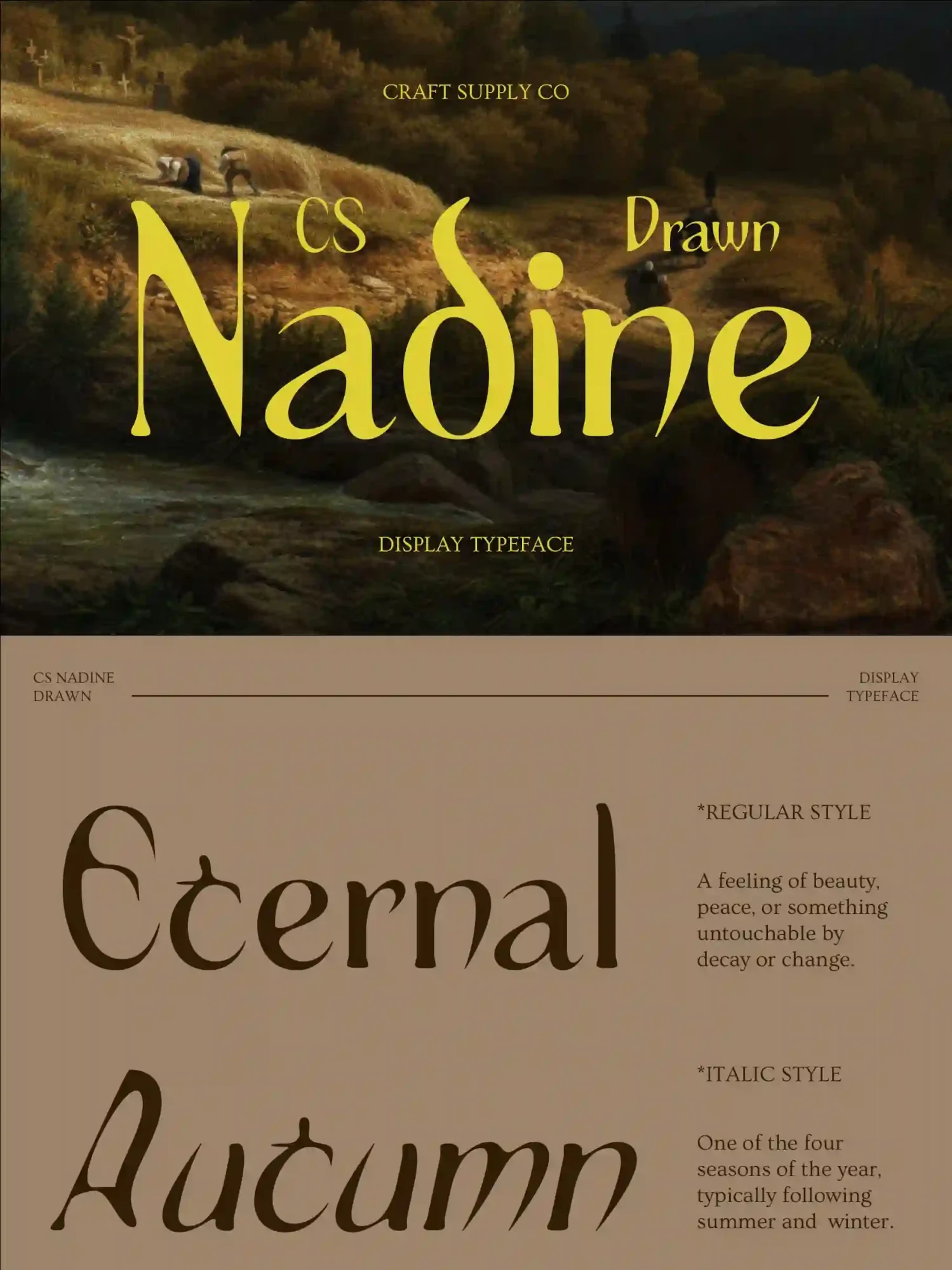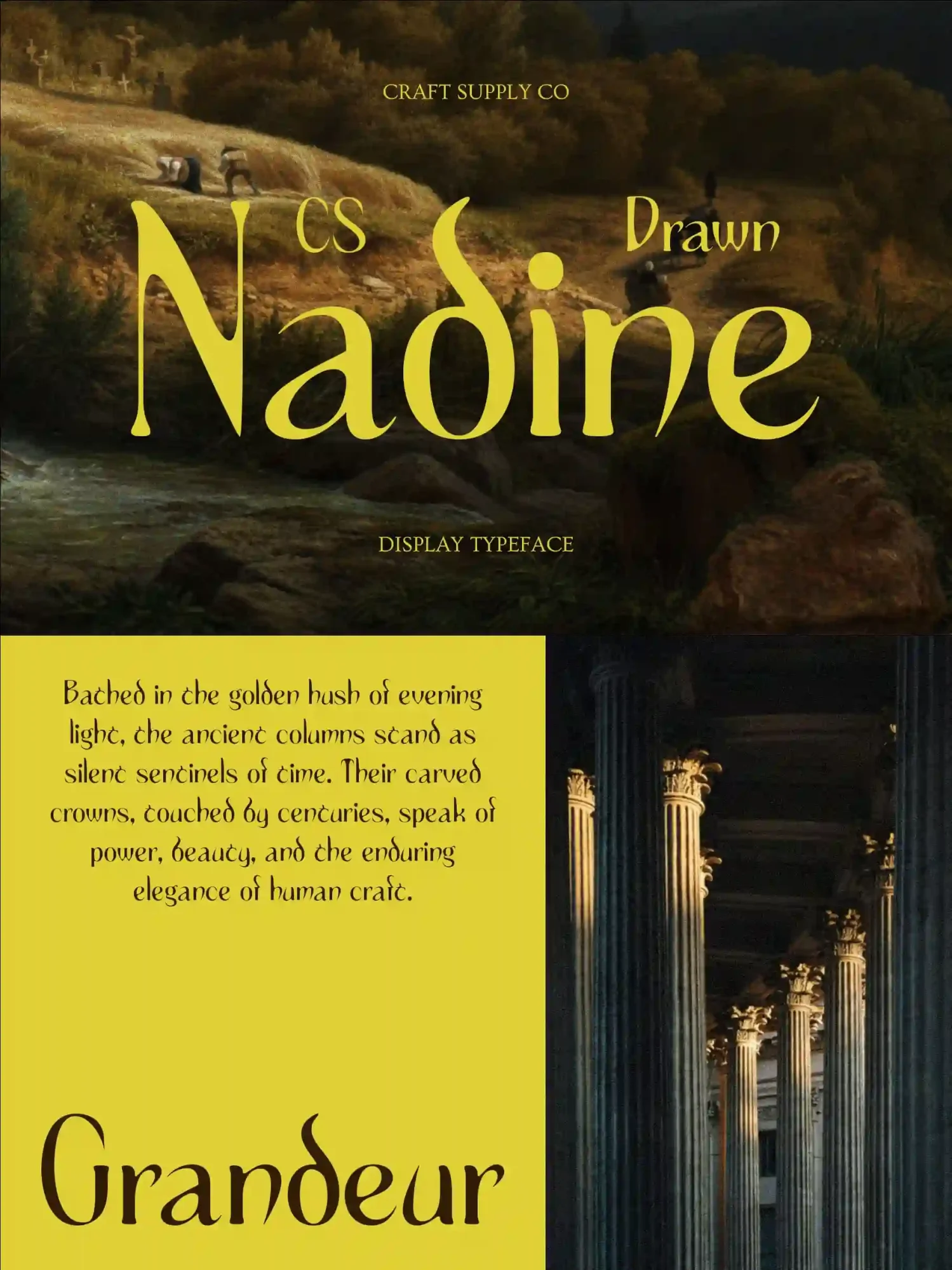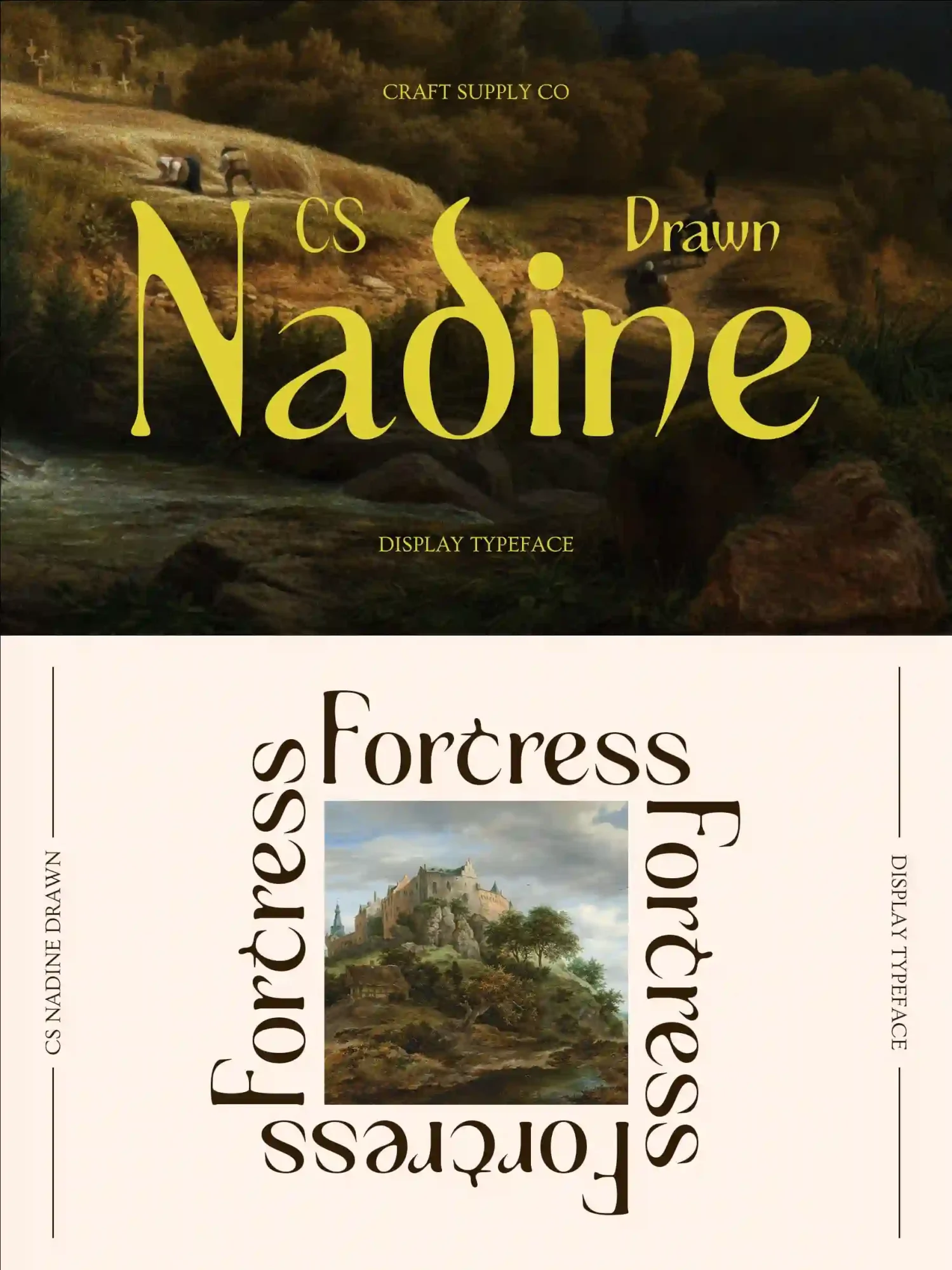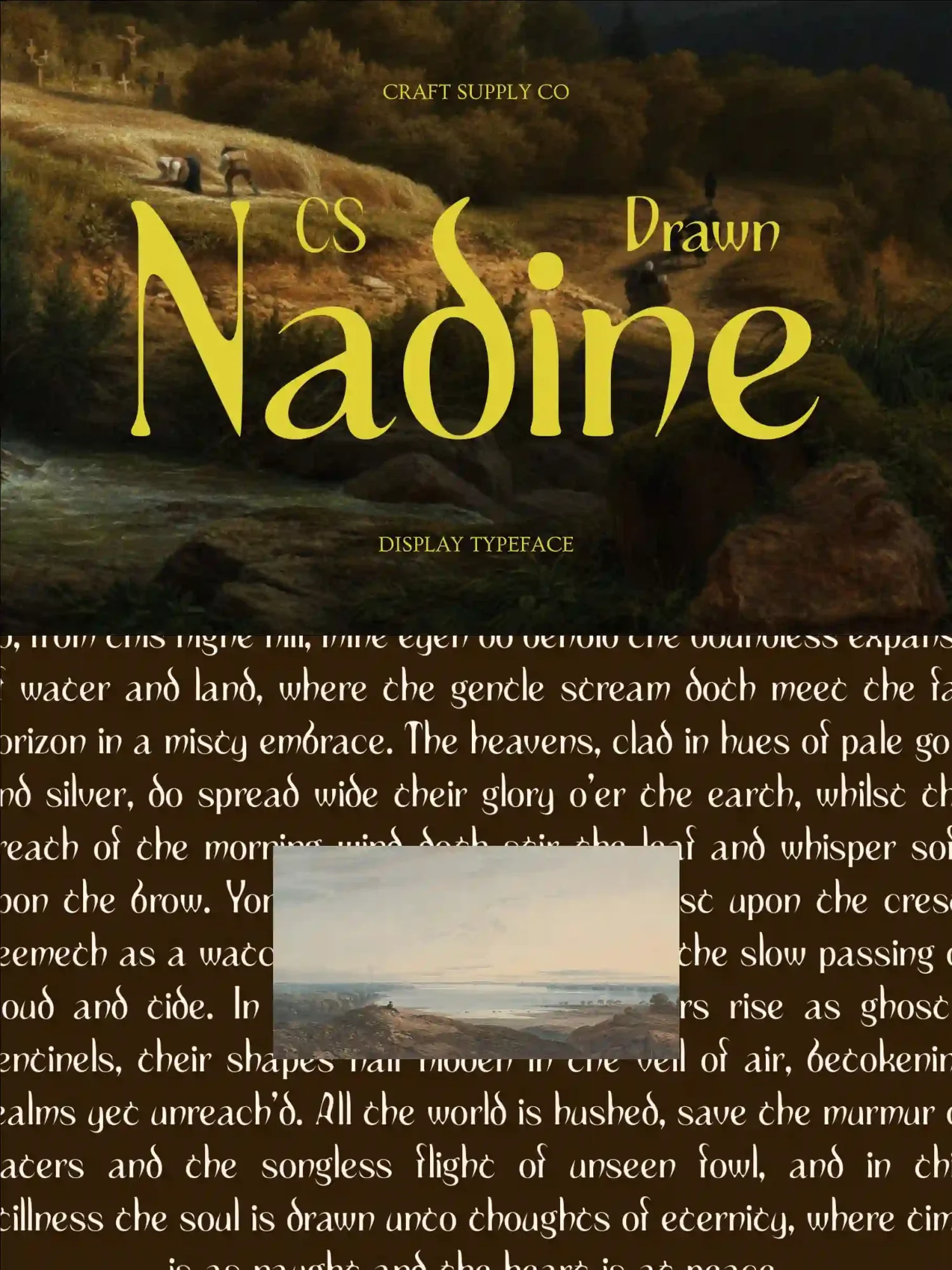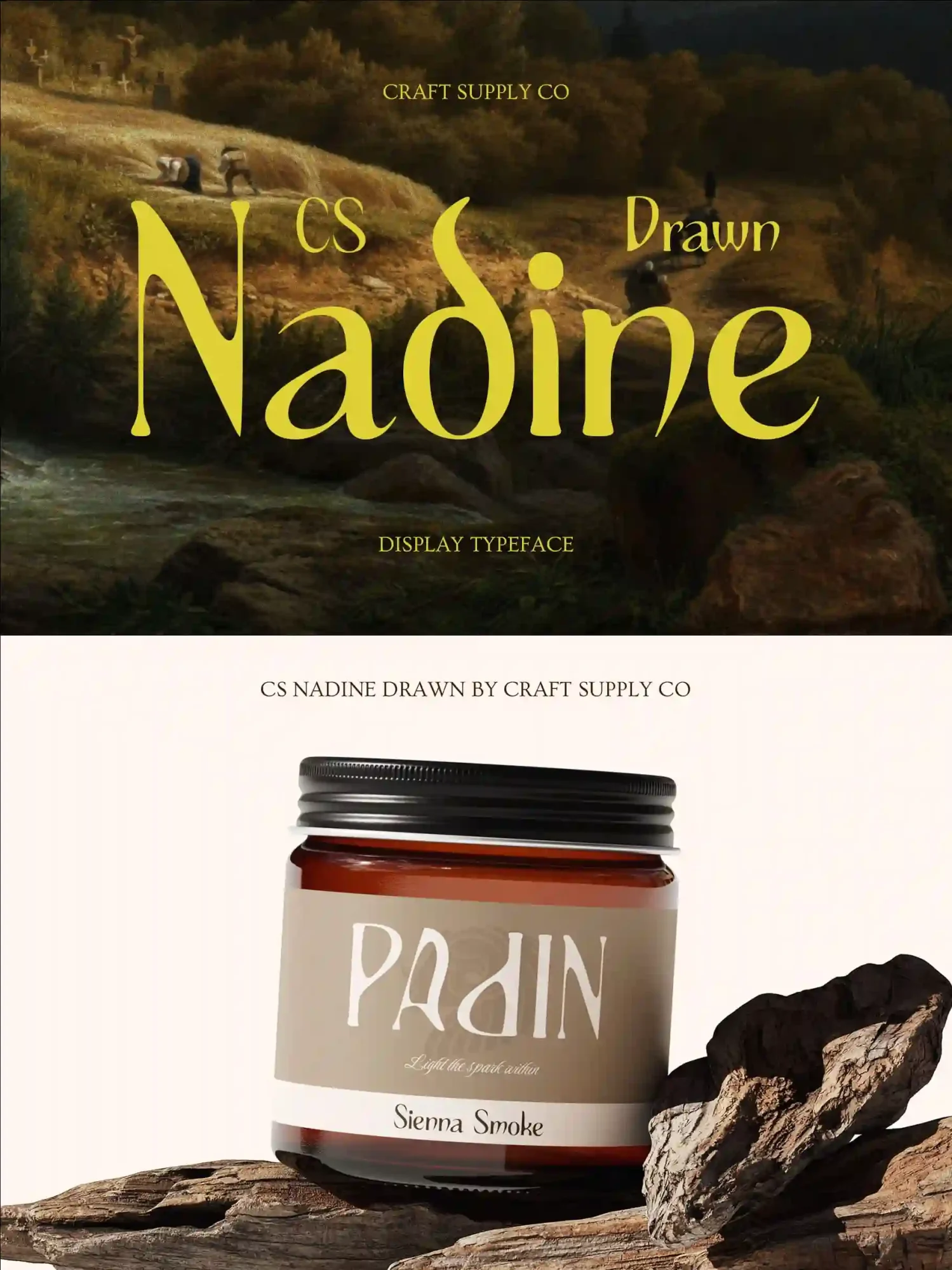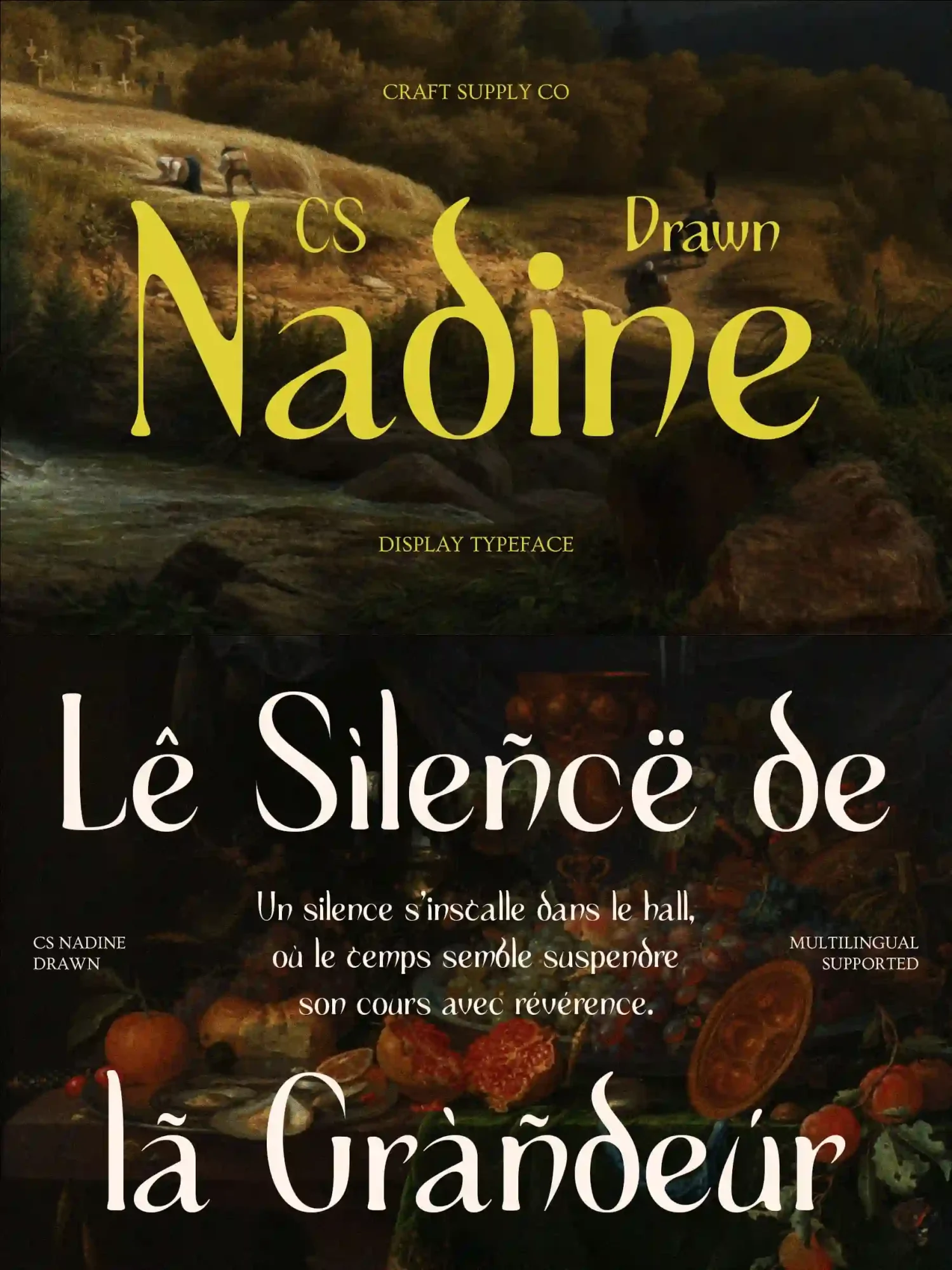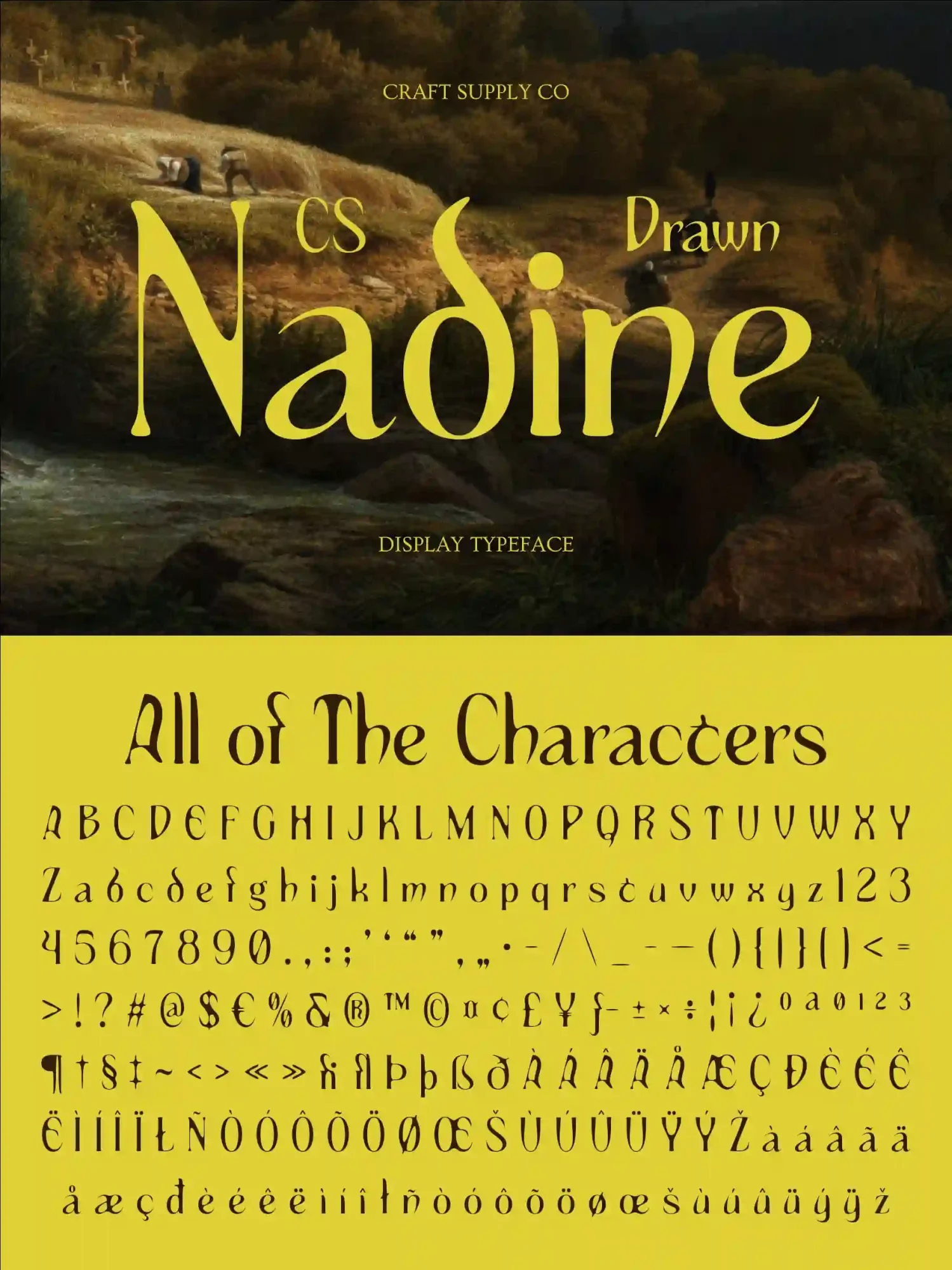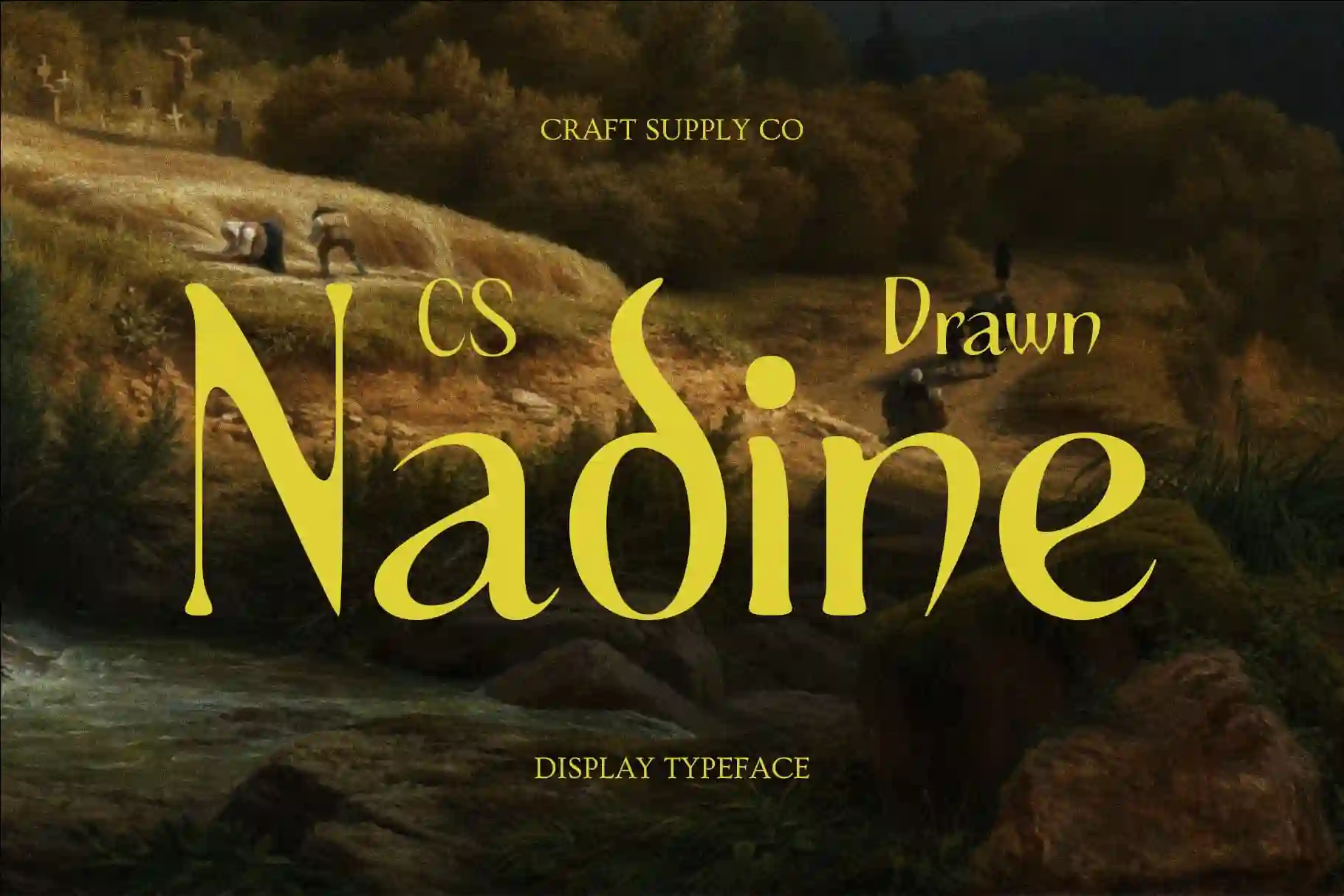
CS Nadine Drawn – Modern Display Serif with Uncial Elegance
Classic Uncial Meets Contemporary Design
CS Nadine Drawn blends timeless uncial forms with a clean, modern serif structure. Its elegant curves and balanced proportions create a refined display font that bridges tradition and contemporary aesthetics, making it perfect for sophisticated design projects.
Artistic Drawn Texture
Enhanced with a subtle drawn effect, each letter carries a handmade, textured quality. This artistic detail adds character and individuality, ensuring that your typography feels expressive, dynamic, and visually engaging in any creative application.